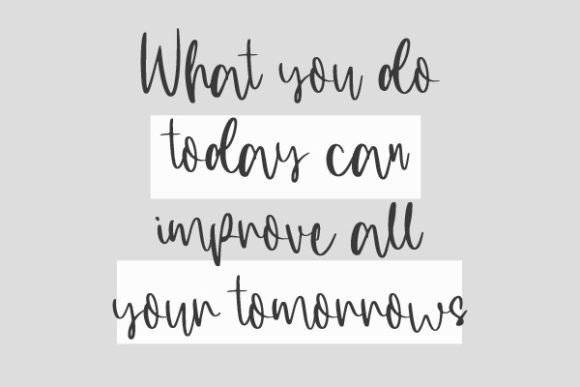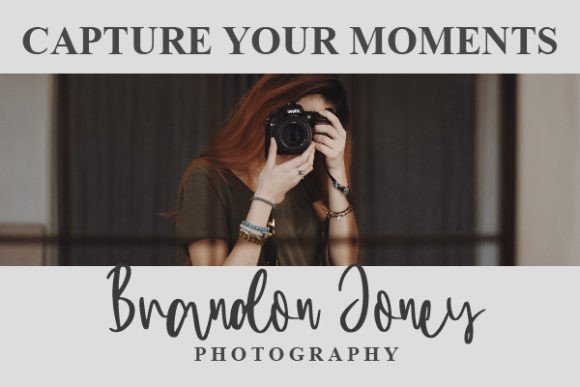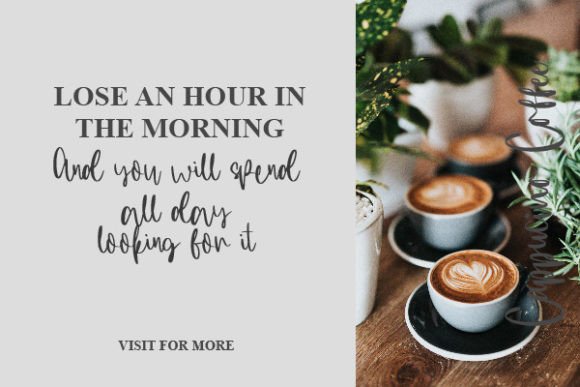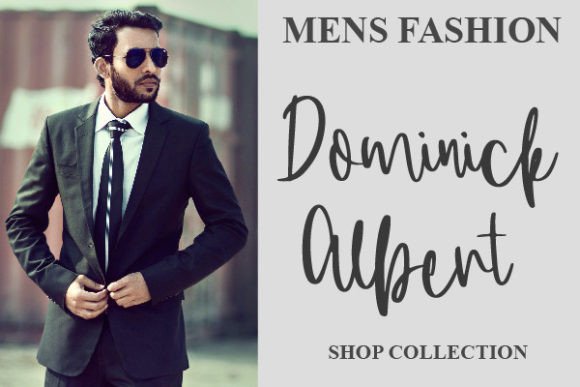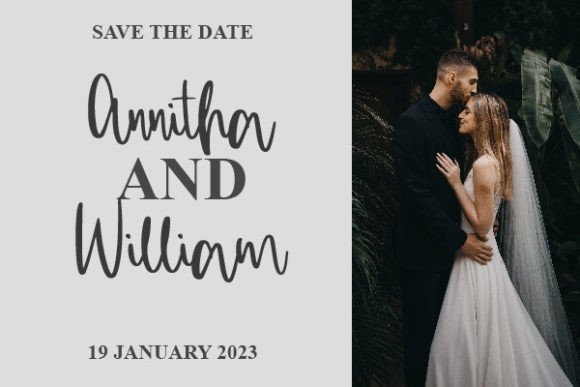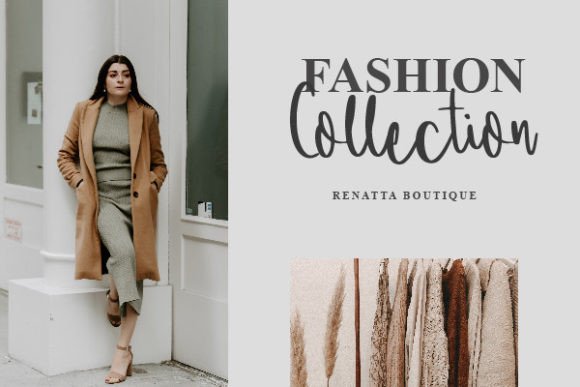
Introduction to Sandra Thornley Font
Sandra Thornley is an exquisite handwritten font, masterfully designed to become a true favorite.
Why Choose Sandra Thornley Font?
Sandra Thornley Font offers exceptional quality and versatility, making it a valuable addition to your design toolkit. Whether you’re creating for personal projects or commercial use, Sandra Thornley Font delivers professional results.